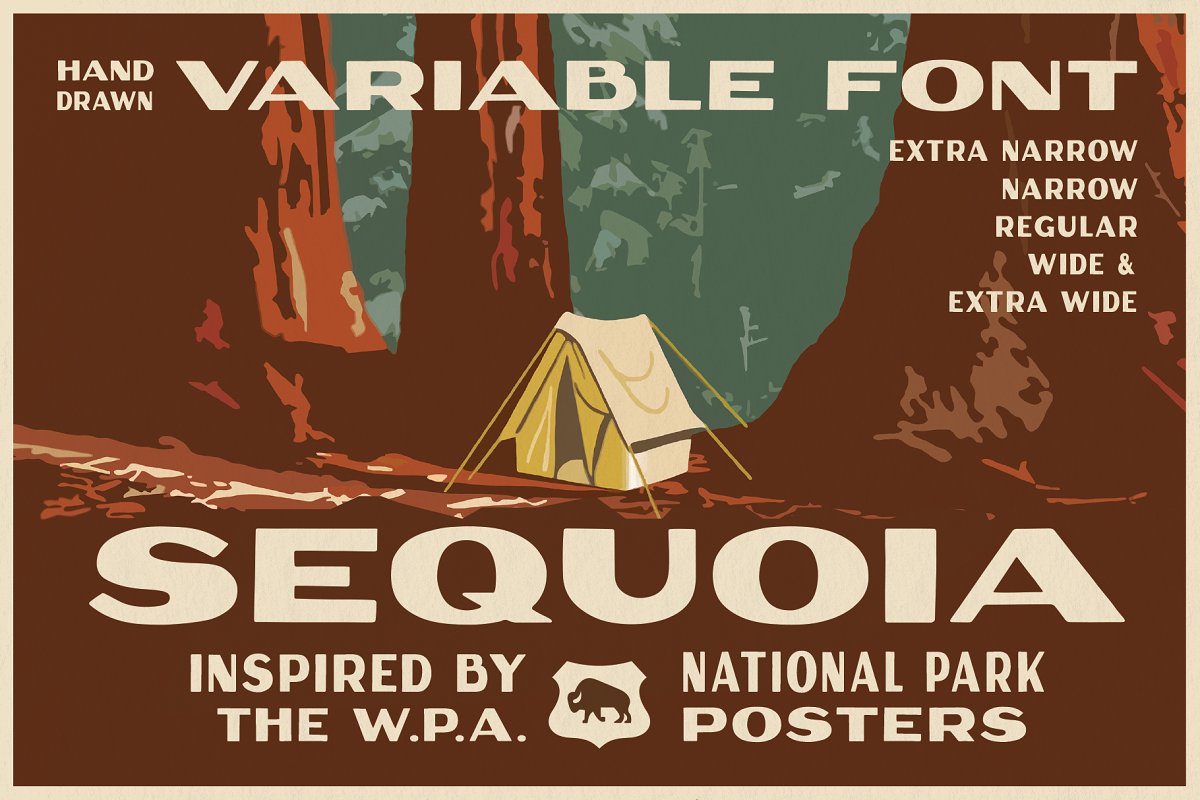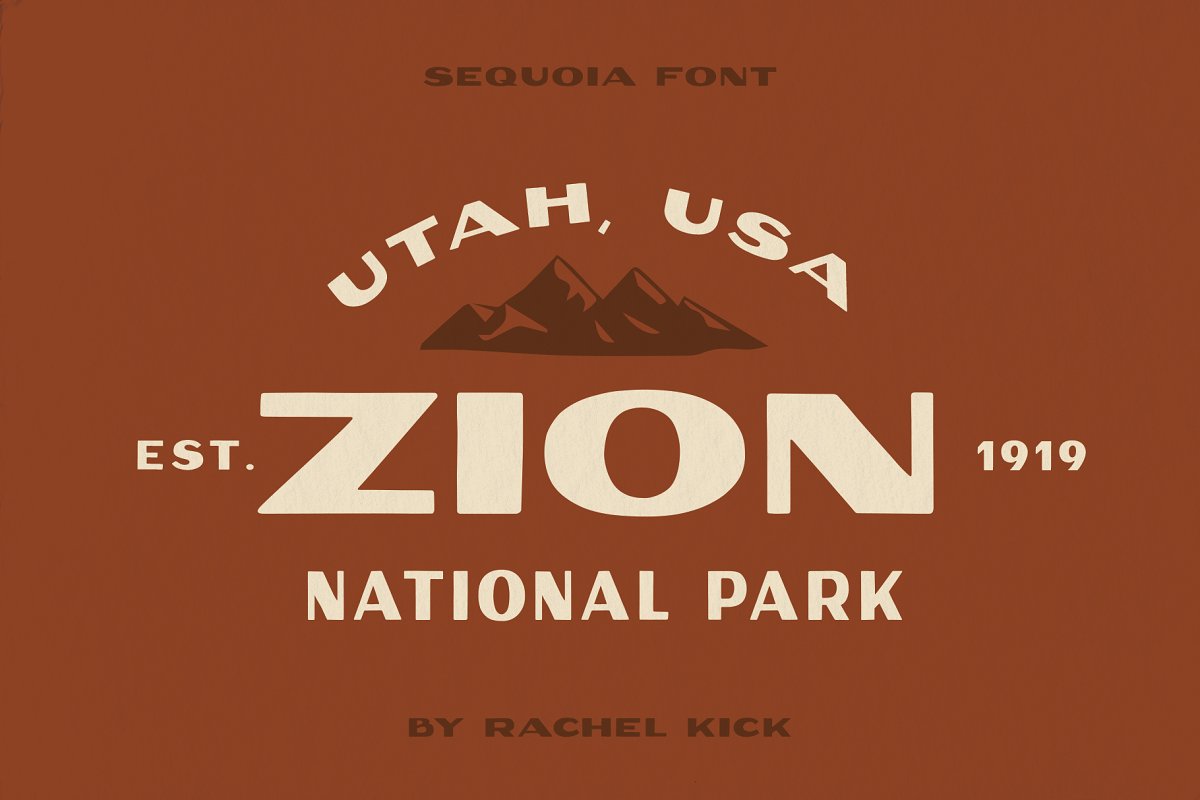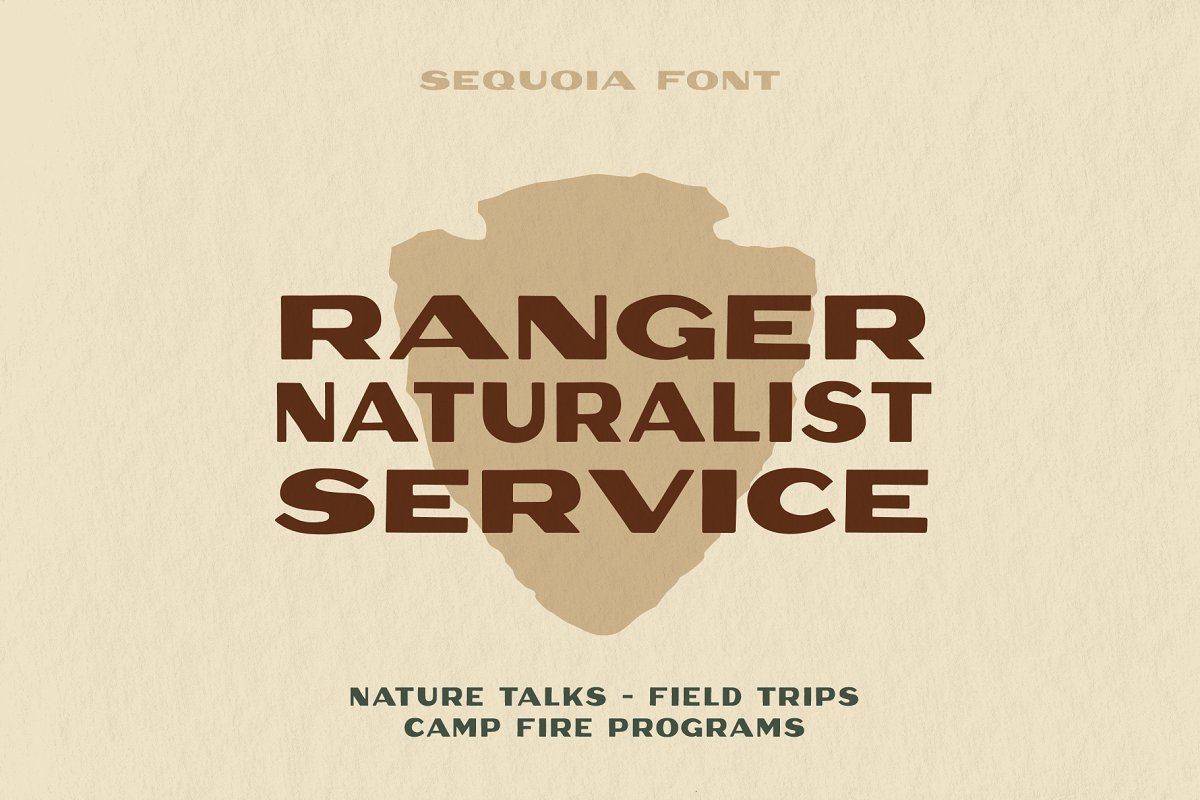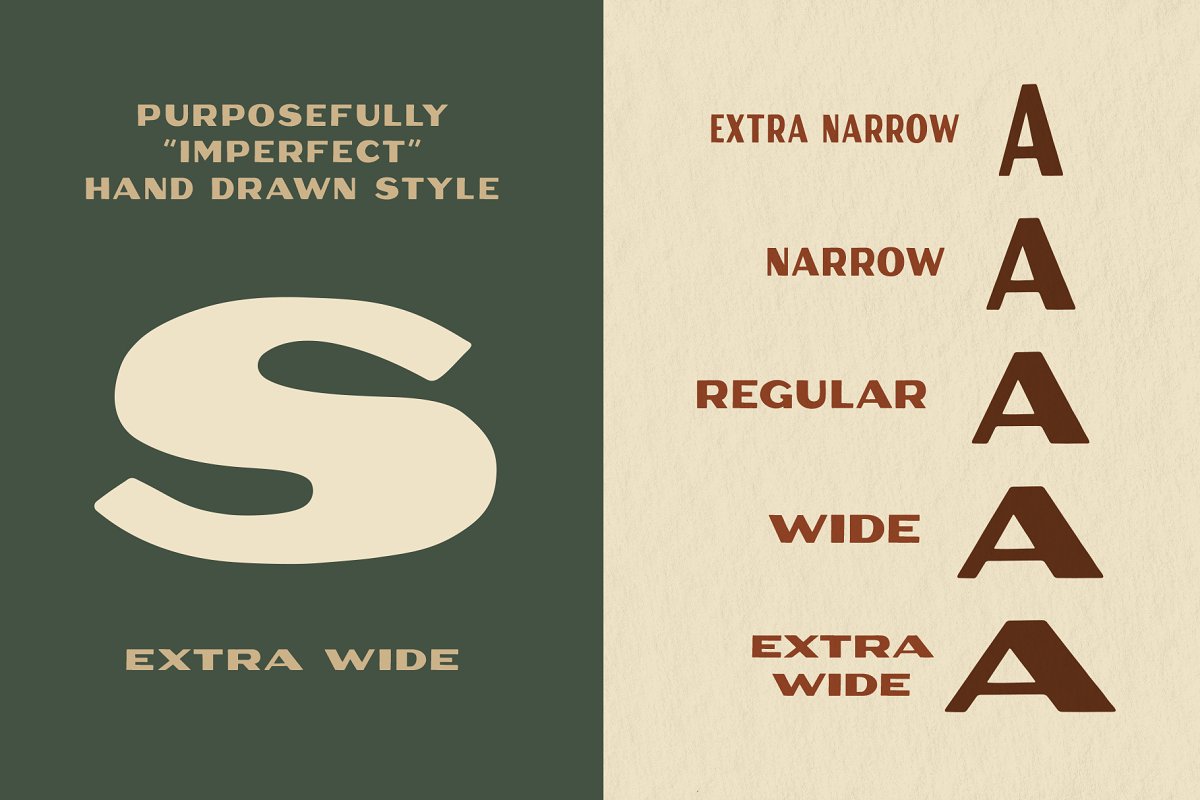
About the Sequoia Display
Sequoia is a quirky, hand-drawn display typeface, It has a playful and organic feel based on the W, P, A, National Park posters created in the 1930s, The variable font allows you to select any point between the extra narrow and extra wide styles to perfectly match the width you need, The original posters that this font was based on included lots of text that all matched but varied in width to fill up the allotted space